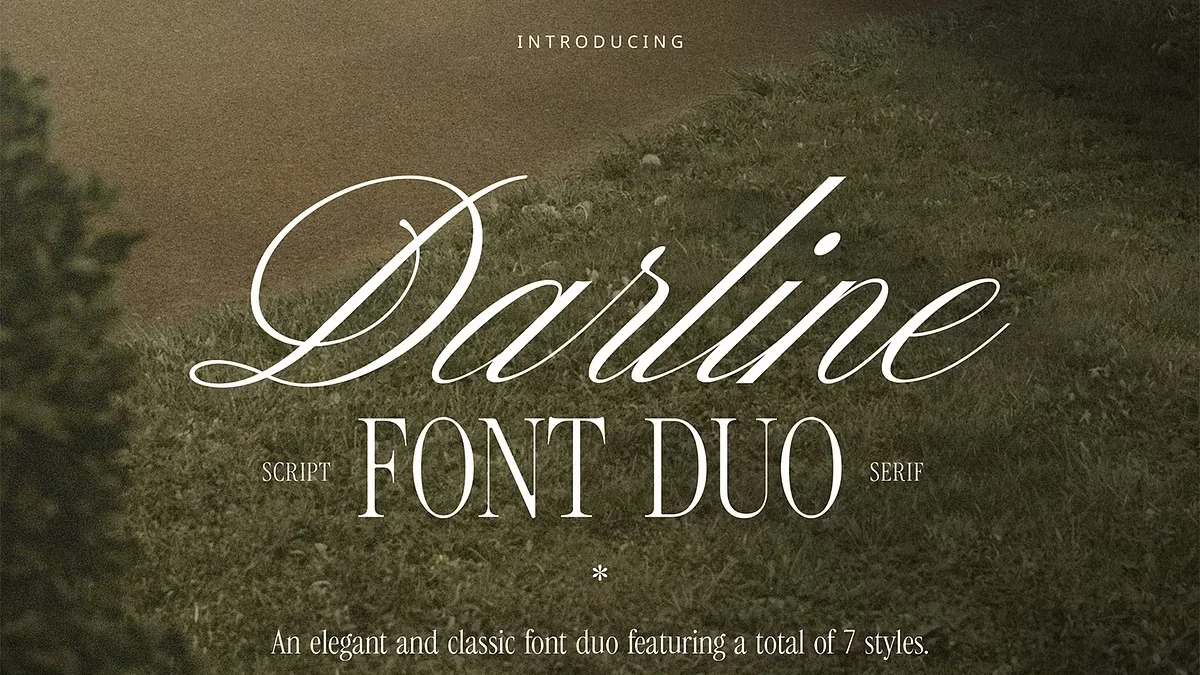
Darline Font Duo: Discover the Chic Serif and Script Pairing by Davide Bassu
The Darline Font Duo captures attention at first glance. It blends a refined serif with a lively script. Davide Bassu designed Darline Font Duo to offer harmony. Have you ever needed a typeface with both elegance and flair? This font duo delivers just that. Moreover, you gain flexibility in weight and style. The serif comes in Light, Regular, and Bold. The script offers Regular, Slanted, Aged, and Aged Slanted. This variety makes Darline Font Duo a go-to for design projects requiring contrast and cohesion. Ready to explore its features?
Why Darline Font Duo Stands Out
Darline Font Duo stands out through thoughtful pairing. The serif anchors your layout with solid, readable shapes. The script adds personality and movement. Together, the typefaces create balance. You can use the serif for body text and accent key phrases with the script. This approach sparks interest without discord. Designers report quick wins when they choose this font combination. They save time and maintain aesthetics. If you value cohesion and style, this font family meets both goals. Have you tried mixing serif and script with other fonts? This duo makes pairing seamless.
Versatile Serif Styles
Darline Font Duo includes three serif weights. Light offers a delicate touch. Regular suits most content needs. Bold commands attention for headlines. Each weight remains consistent in stroke and proportion. This consistency ensures smooth transitions. You can layer text blocks with confidence. Moreover, the serif styles play well with diverse layouts. Whether you design a magazine spread or a website banner, they adapt. The serif weights handle body text and headings alike. Have you ever struggled to find matching serif options? The font duo solves that problem.
Expressive Script Variants
Darline Font Duo also ships with four script versions. Regular delivers clean ligatures. Regular Slanted leans naturally. Aged adds textured charm. Aged Slanted merges both styles. This range makes Darline Font Duo highly expressive. You can choose a polished script or a vintage look. The script styles work as accents or logos. Plus, they pair nicely with the serif slices. Many users praise Darline Font Duo for its versatility. Does your project need a hand-lettered vibe or a sleek flourish? These scripts answer that call.
Full Set of Symbols and Punctuation
The Darline Font Duo covers all common symbols. You get full punctuation marks. Numerals appear in lining style. Special characters include currency signs. In addition, the fonts support stylistic alternates. You can swap in custom glyphs with ease. This feature saves time and boosts creativity. When you need dashes or slashed zeros, they’re ready. Designers avoid fallback fonts and maintain brand consistency. The completeness of the Darline Font Duo means fewer compromises. How often do missing symbols derail your work? This font duo keeps your layouts spotless.
Broad Language Support
This typeface speaks many tongues. It supports English, Italian, French, Spanish, and more. German, Portuguese, Dutch, Danish, Norwegian, and Swedish are included. All accented letters display correctly. This coverage works for global audiences. You save money on extra font licenses. You also increase readability across markets. Many freelancers and agencies praise this convenience. Are you targeting users in multiple countries? The typeface simplifies localization and design workflow.
Perfect Pairing for Branding
It’s a typeface that shines in branding projects. The serif builds trust, while the script evokes emotion. Together, they tell a story. Many brands use it for logos and packaging. They find it balances authority and charm. Moreover, color choices enhance the effect. Dark backgrounds make the script pop. Light layouts highlight serif elegance. You can adjust weights for hierarchy. Does your brand need a fresh voice? Try this font duo for a memorable identity.
Bring Darline Font Duo to Your Next Project
The Darline Font Duo offers you serious design power. It blends serif and script seamlessly. You gain weights, glyphs, and global support. Every style feels polished and purposeful. Darline Font Duo adapts to diverse projects. From editorial spreads to brand identities, it excels. Try mixing the serif and script. Notice how emphasis shifts naturally. You’ll find new ways to engage readers. Ready to elevate your designs? Download Darline Font Duo today and enjoy creative freedom.